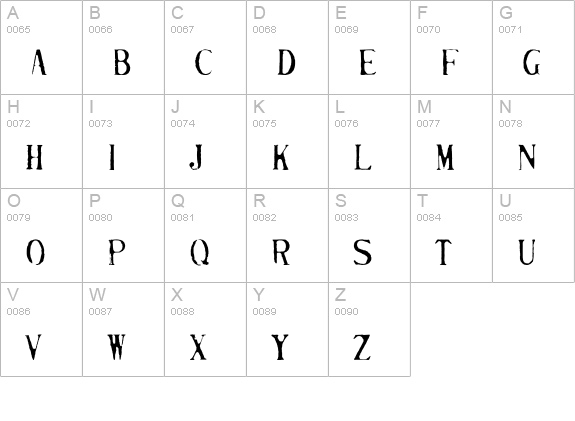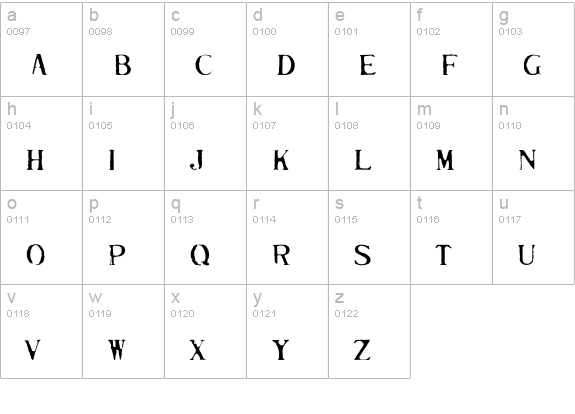
Mutilated-PlainCaps Font Details
Introducing Mutilated-PlainCaps font, a uniquely crafted typeface that blends elements of modernity with a touch of whimsical mutilation. This font features distorted letterforms in a plain and straightforward style, giving it a mysterious and edgy appeal. The uneven and jagged edges of the letters create a sense of intrigue and creativity, making Mutilated-PlainCaps perfect for projects that require a bold and daring aesthetic. Best of all, Mutilated-PlainCaps font is available for free download at FontsMarket.com. Whether you're designing a poster, logo, or any other creative project, this font will surely make a statement and leave a lasting impression. Don't miss out on the opportunity to add this unique and eye-catching font to your collection today.